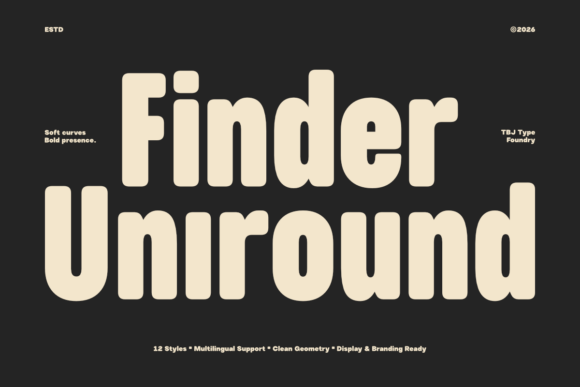
When Headlines Make a Statement
Do you remember the moment when a bold, eye-catching headline caught your attention and made you stop scrolling? It’s a feeling designers aim to recreate with every project, and a well-chosen font can make all the difference. That’s where Finder Uniround Font comes in – a soft-bold display typeface designed to stand out without feeling aggressive.
Finder Uniround Font is built with smooth geometry and clean construction, delivering a warm yet confident tone for contemporary visual work. Its unique blend of thickness and curvature creates a clear, approachable voice that adds clarity and personality to bold compositions. Whether you’re working on a poster, branding, or packaging project, Finder Uniround Font is the perfect choice to bring harmony and visual cohesion to your designs.
Finder Uniround Font Key Features
• Font Family: Finder Uniround Font
• Unique Characteristics: Unique rounded shapes, clean lines, and modern design make it ideal for digital and print applications
Finder Uniround Font Review
Overall, I’m impressed with the Finder Uniround Font. It’s a unique, futuristic design that’s perfect for adding a touch of modernity to any project. Here’s what I like:
• ✨ Clean lines and simple shapes create a cohesive and professional look.
• ✨ The font is highly customizable, with a wide range of weights and styles to choose from.
• ✨ Finder Uniround Font supports a wide range of languages, making it a great option for global projects.
• ⚠️ The font may not be the best choice for projects that require a lot of text, as it can become overwhelming and difficult to read.
• ⚠️ Some users may find the font too futuristic or avant-garde, which may not be suitable for all projects or audiences.
• ⚠️ As with any font, compatibility issues may arise when used with certain software or systems.
Overall, I’d recommend the Finder Uniround Font for projects that require a modern, futuristic look. With its clean design and high level of customization, it’s a great option for designers who want to add a touch of sophistication to their work. Just be aware of the potential limitations and use it judiciously.
Tips for Getting the Most Out of Finder Uniround Font
1. Experiment with different font sizes and colors to create a visually appealing design.
2. Use Finder Uniround Font in combination with other fonts to create a unique and eye-catching look.
3. Apply the font to headings and titles to create a clear hierarchy of information.
Finder Uniround Font is ideal for:
1. Creating modern and trendy designs.
2. Adding a touch of sophistication to your branding materials.
3. Creating eye-catching headings and titles.
Alternatives to “Finder Uniround Font” for Designers
Open Sans is a popular, modern sans-serif font that is highly legible and versatile. It is suitable for a wide range of applications, including body text, headings, and titles. Open Sans is a great alternative to Finder Uniround Font for designers who want a clean and minimalist aesthetic.
Comparison: While Finder Uniround Font has a more rounded and friendly feel, Open Sans has a more geometric and modern look. Open Sans is also more widely supported and available in a wider range of languages.
Lato is a sans-serif font that is designed to be highly legible and versatile. It has a clean and modern aesthetic that is suitable for a wide range of applications, including body text, headings, and titles. Lato is a great alternative to Finder Uniround Font for designers who want a font that is both stylish and functional.
Q: What is the recommended font size for using the Finder Uniround Font?
The recommended font size for the Finder Uniround Font is between 12pt and 24pt. This range allows for clear readability and optimal visual impact. However, feel free to experiment with different font sizes to achieve the desired effect in your design.